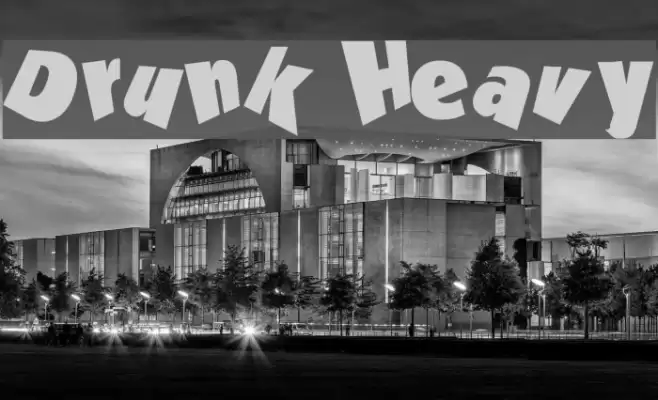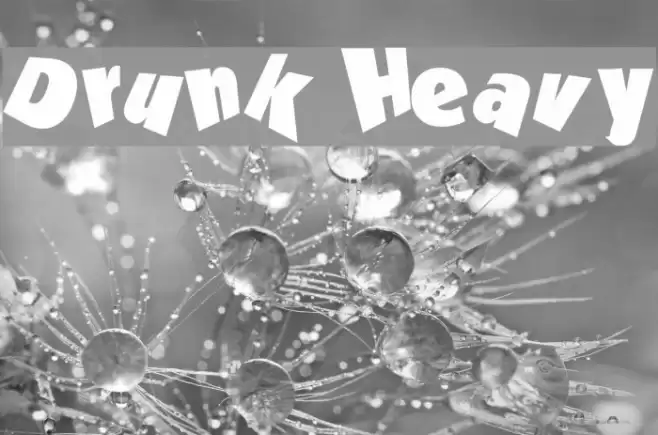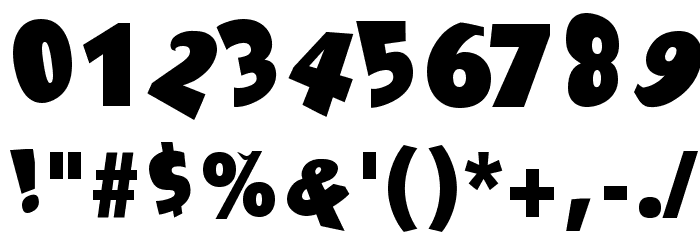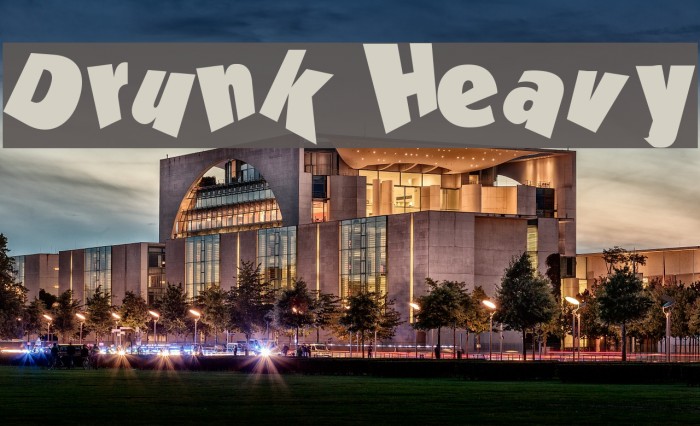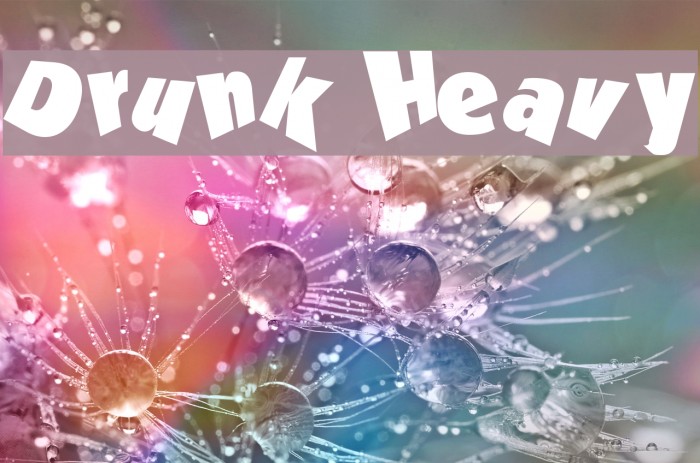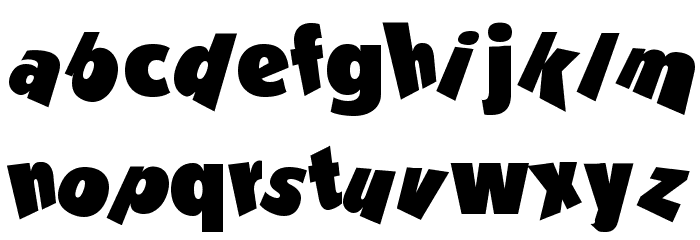
Drunk Heavy Font
Drunk Heavy Description
This font features a playful and whimsical style, characterized by its irregular and wavy letterforms that give it a lively and dynamic appearance. The bold strokes and uneven baseline create a sense of movement and energy, making it stand out in any design. Its quirky and informal nature makes it ideal for projects that aim to convey fun and creativity. The font includes a full set of uppercase and lowercase letters, numbers, and a variety of special characters, ensuring versatility in its application.
A playful and whimsical font with bold, irregular letterforms from Uncategorized fonts.
- Proposed Projects: Ideal for children's books, party invitations, playful branding, and creative posters.
- Overall Style: Playful